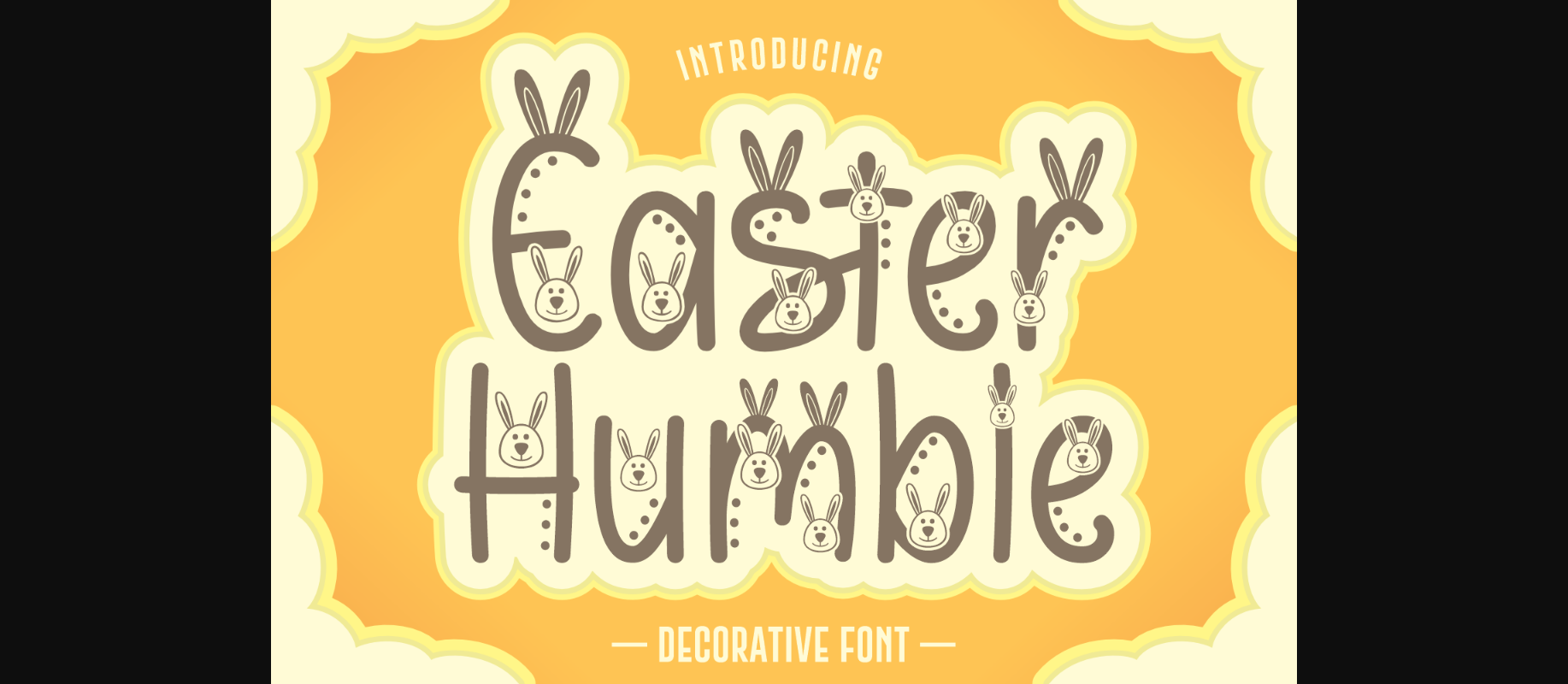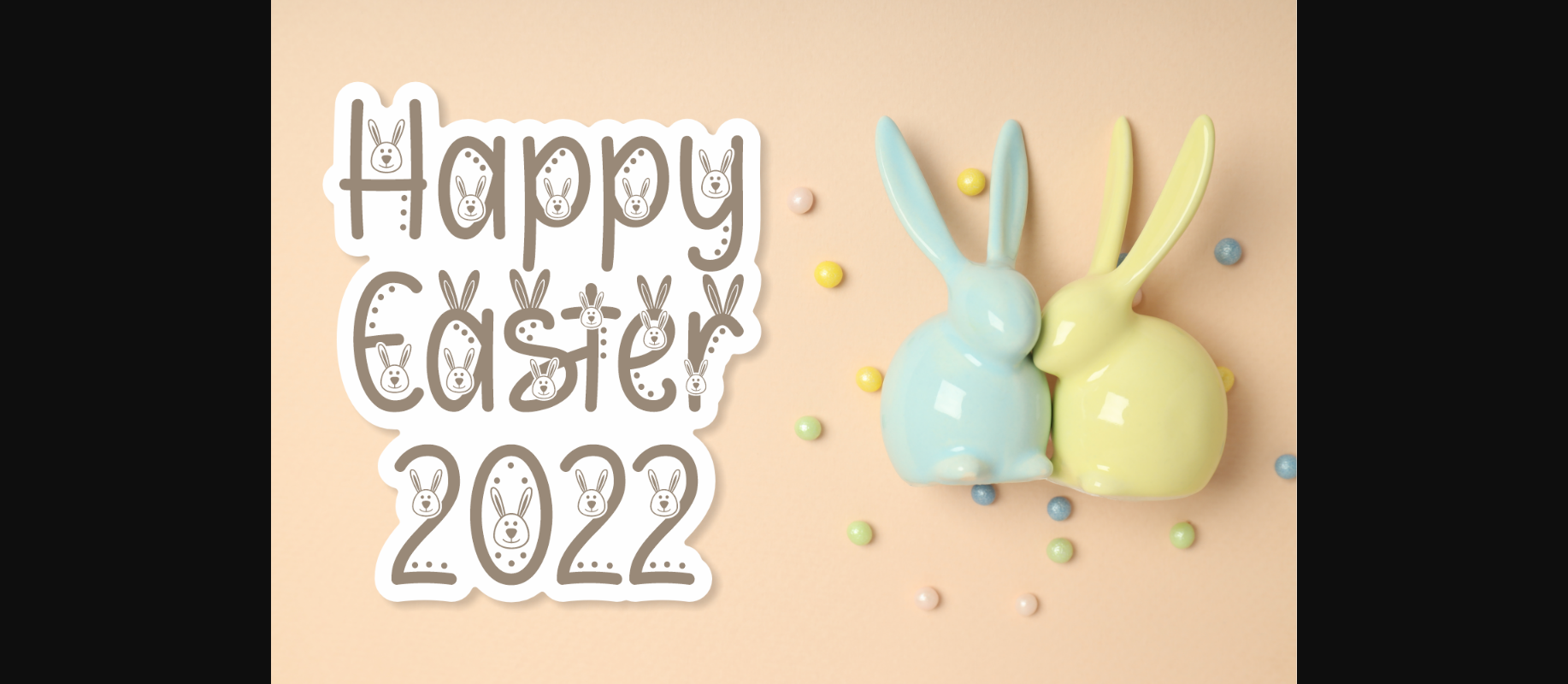
About Easter Humble Font
Easter Humble is a creative decorative font inspired directly by the Easter bunny. Cute little bunny heads pop out from everywhere. You can see those cuties on every uppercase, lowercase, and other character. Grab Easter Humble font and create Easter cards, stickers, wall art, frames, invitations, posters, and kids’ clothing designs.